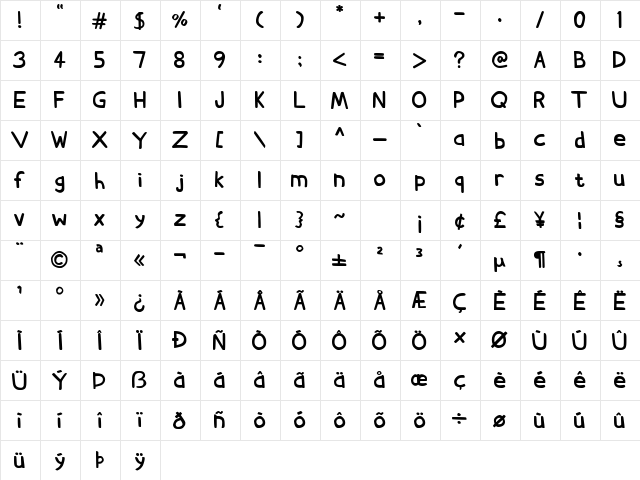
Der Neue Spargel Regular
| Designer | Dan Johnston |
Design Context for Der Neue Spargel Typeface
Der Neue Spargel offers clean, dependable letterforms without strong stylistic allegiance, making it a practical choice for designers who need flexibility.